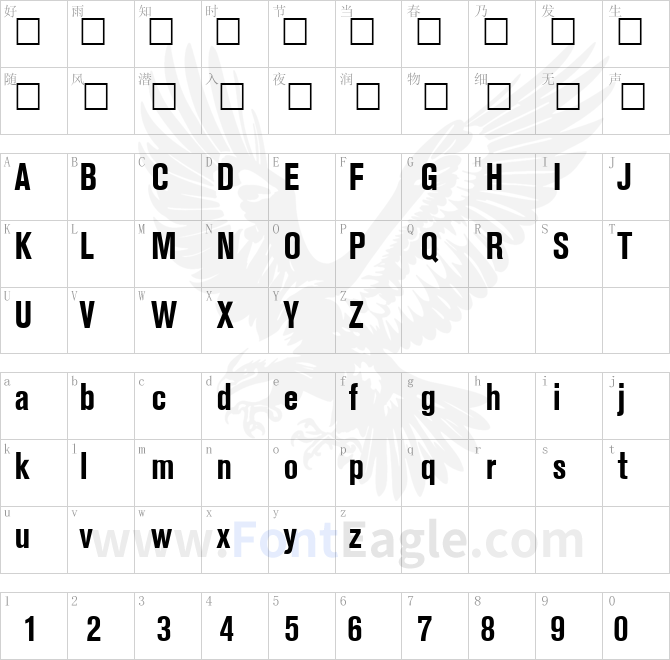
- Font name:AkzentCond
AkzentCond-Bold is a great font, widely used in graphic design, single-page menu design, poster design and other fields, and is deeply loved by designers.AkzentCond-Bold download.